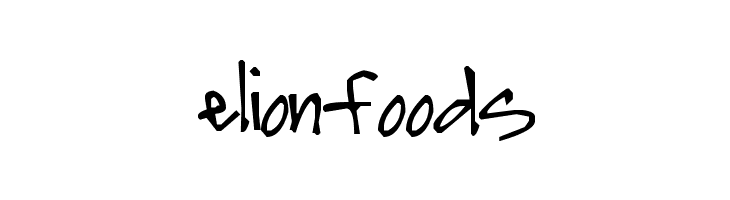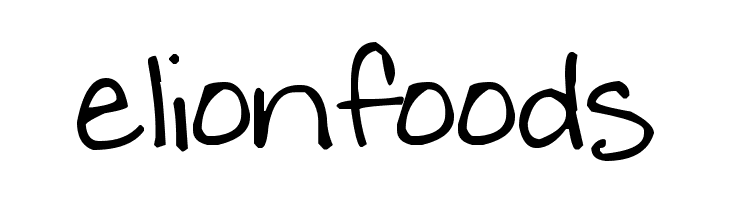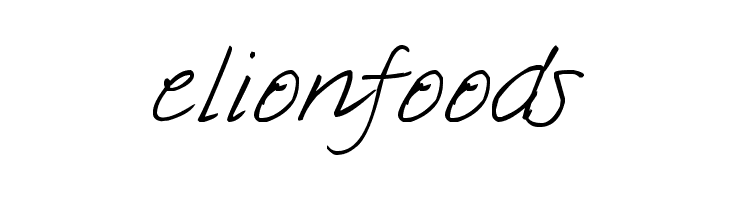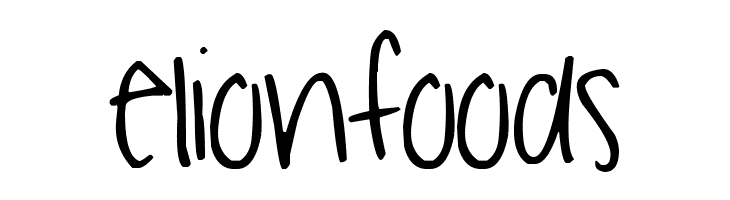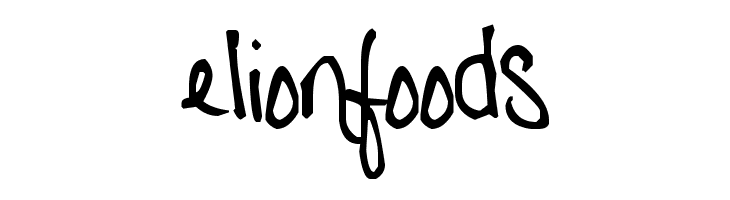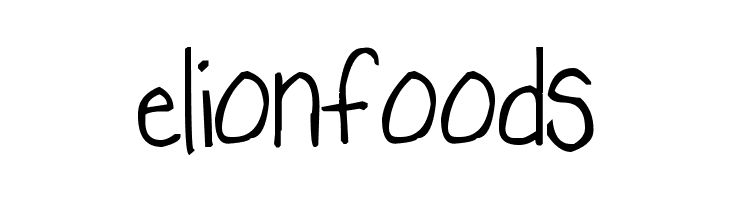
A casual, handwritten font with a playful and informal style.
A playful, casual handwritten font with a whimsical and informal style.
A playful, handwritten font with dynamic strokes and a casual style.
A playful, casual handwritten font with an informal and organic style.
A playful, casual handwritten font with uneven strokes and a natural flow.
A playful, handwritten font with bold strokes and a casual, informal style.
A playful, informal handwritten font with uneven strokes and a lively appearance.
A bold, dynamic handwritten font with expressive strokes.
A playful, handwritten font with a casual, doodle-like style.
A playful, casual handwritten font with irregular strokes and a whimsical appearance.